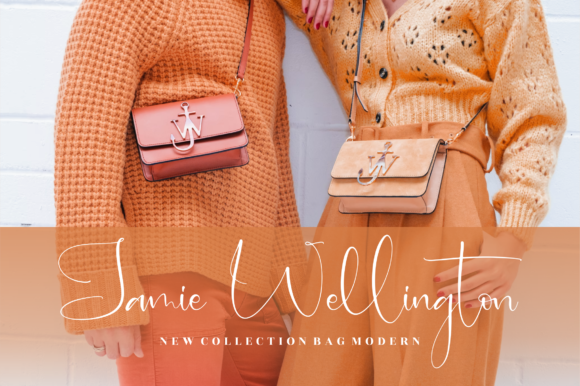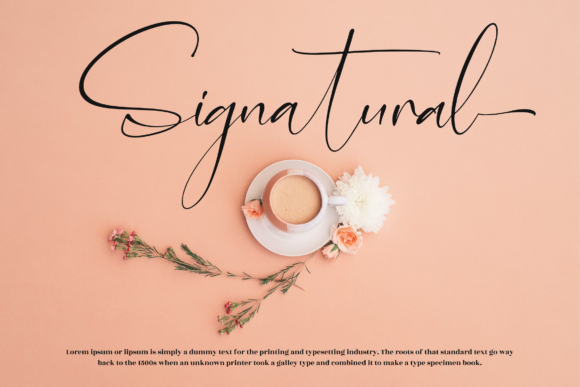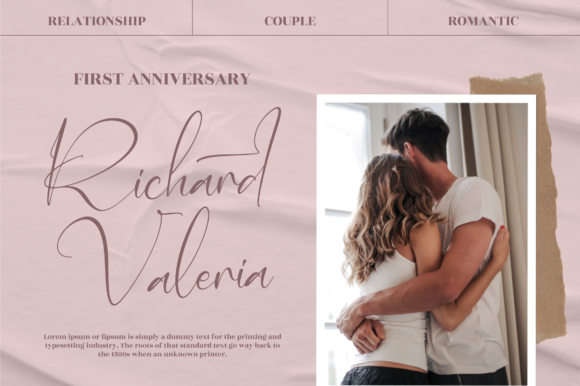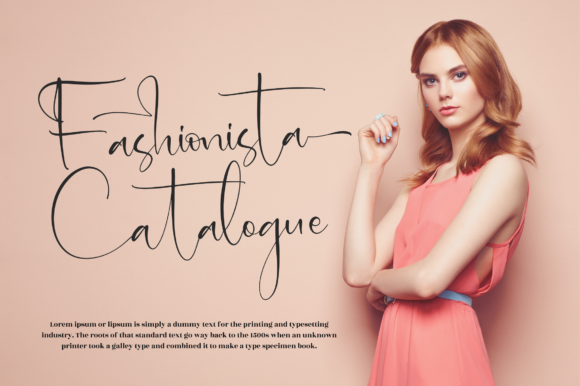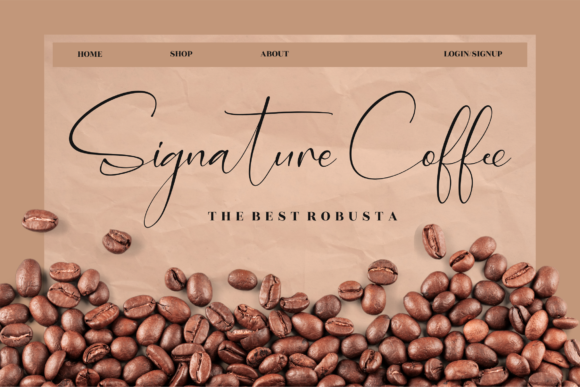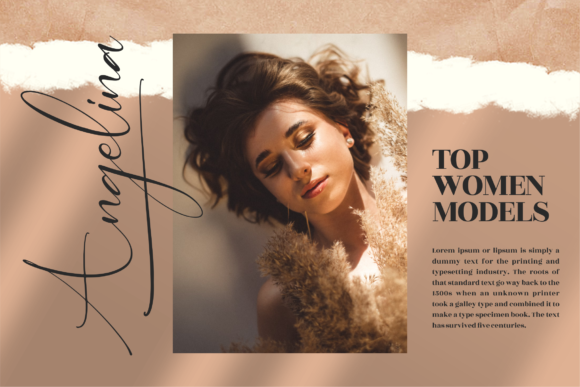
Introduction to Berthalia Donatha Font
Berthalia Donatha is a beautiful and light handwritten font with a unique feel and a stunning impact.
Key Features of Berthalia Donatha Font
Why Choose Berthalia Donatha Font?
Berthalia Donatha Font offers exceptional quality and versatility, making it a valuable addition to your design toolkit. Whether you’re creating for personal projects or commercial use, Berthalia Donatha Font delivers professional results.